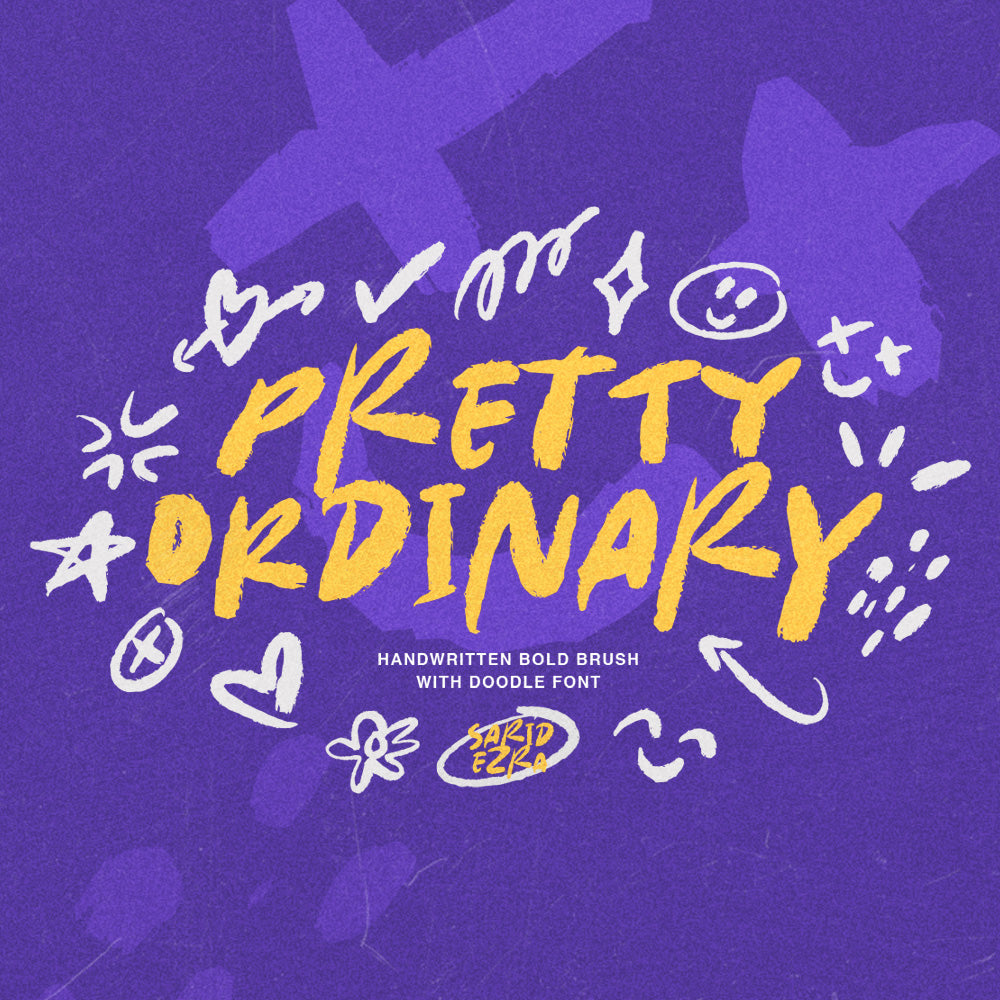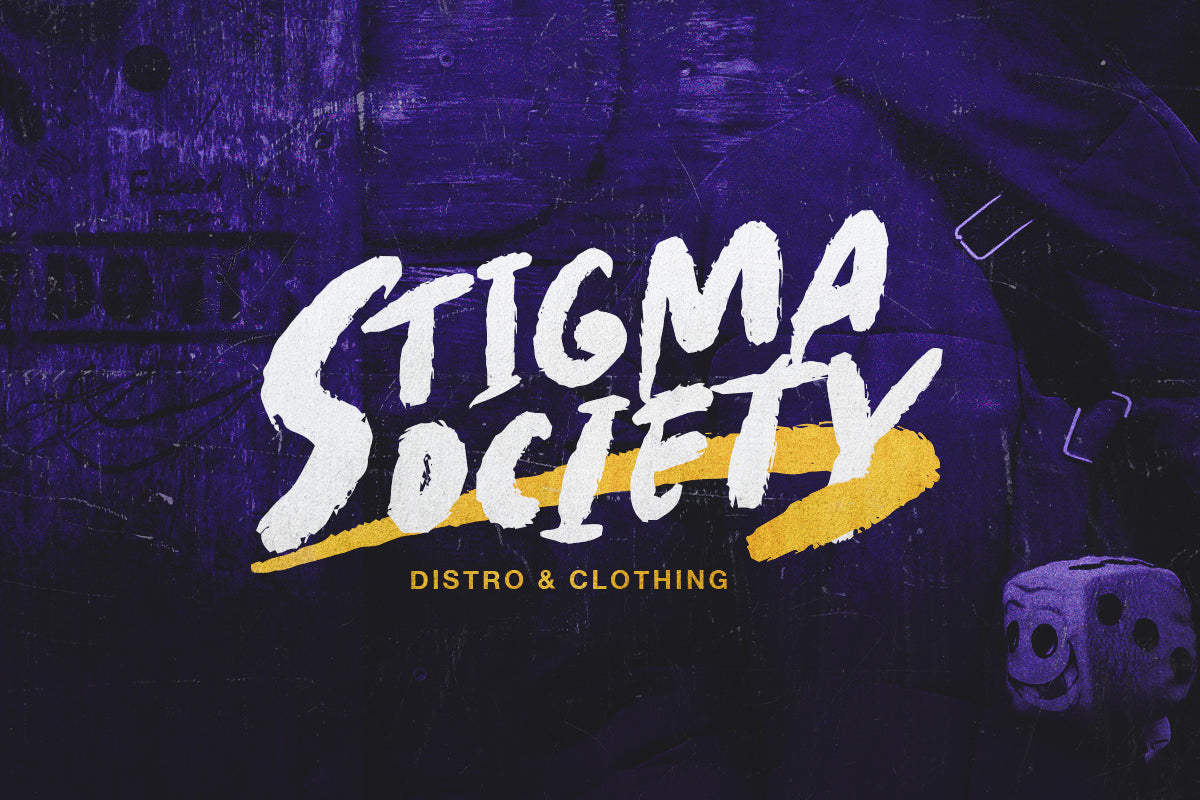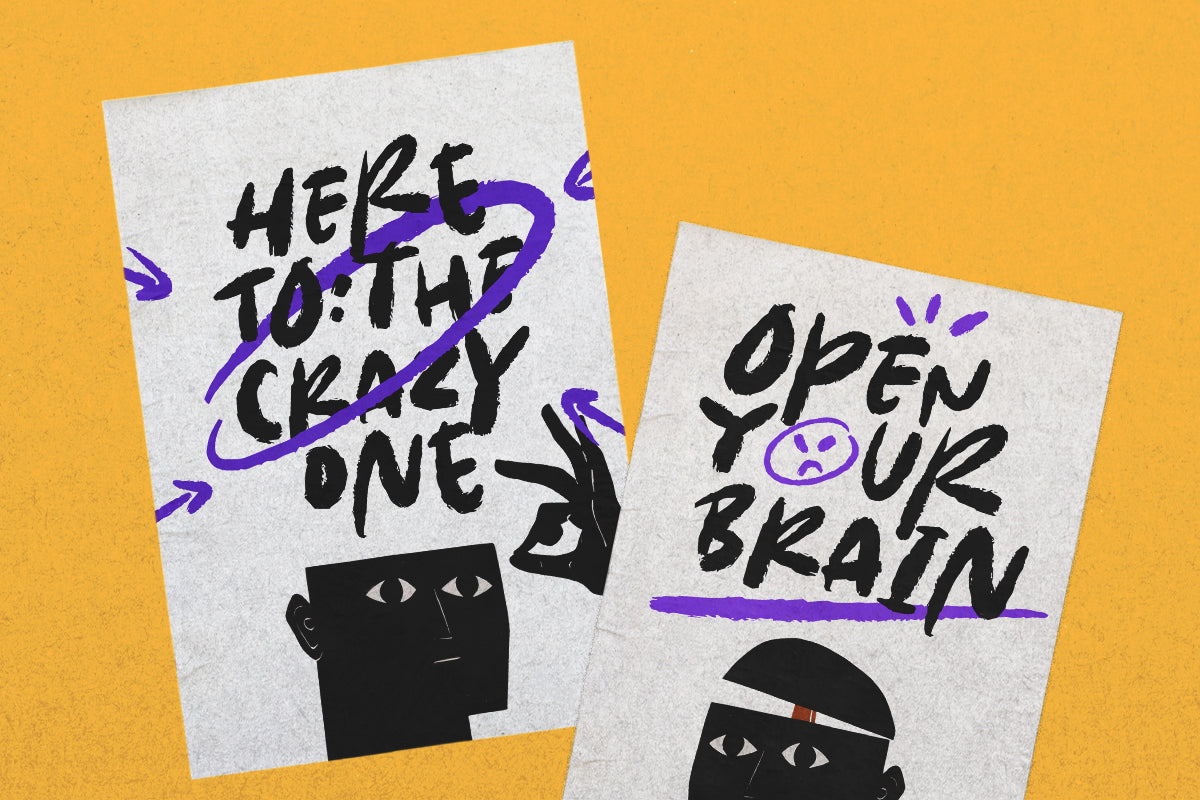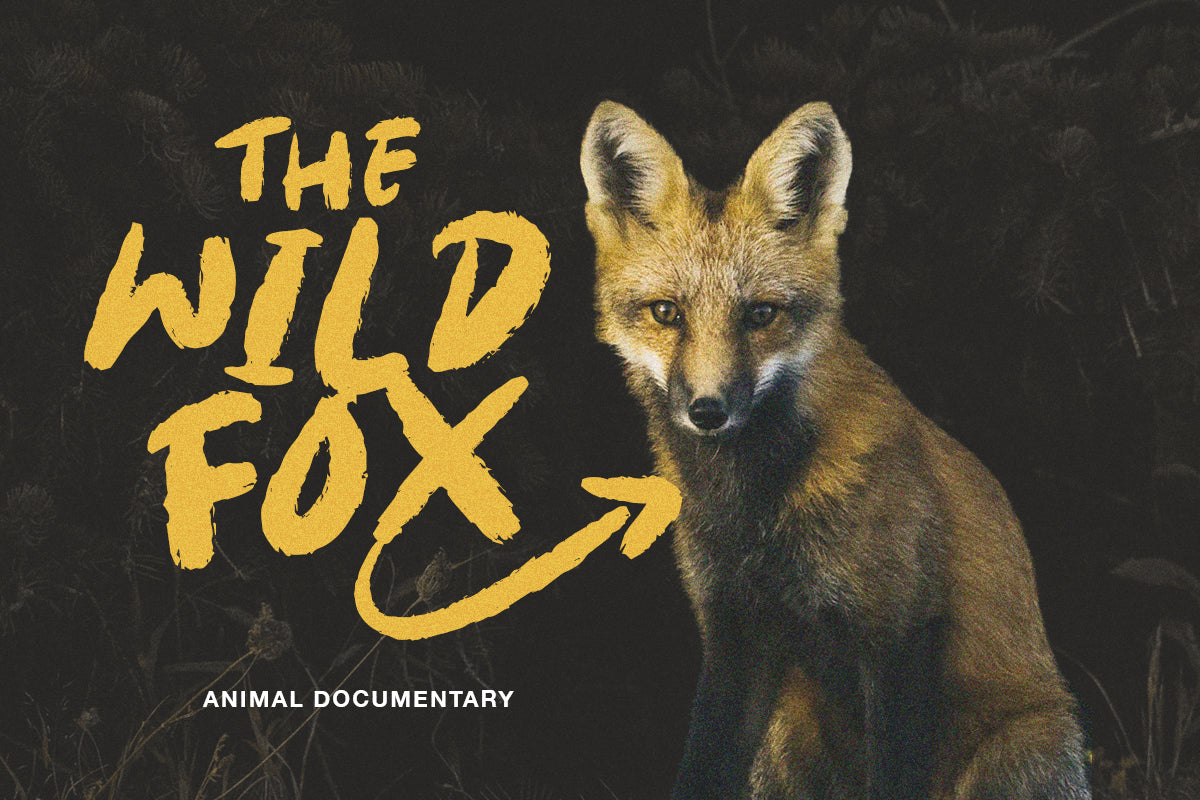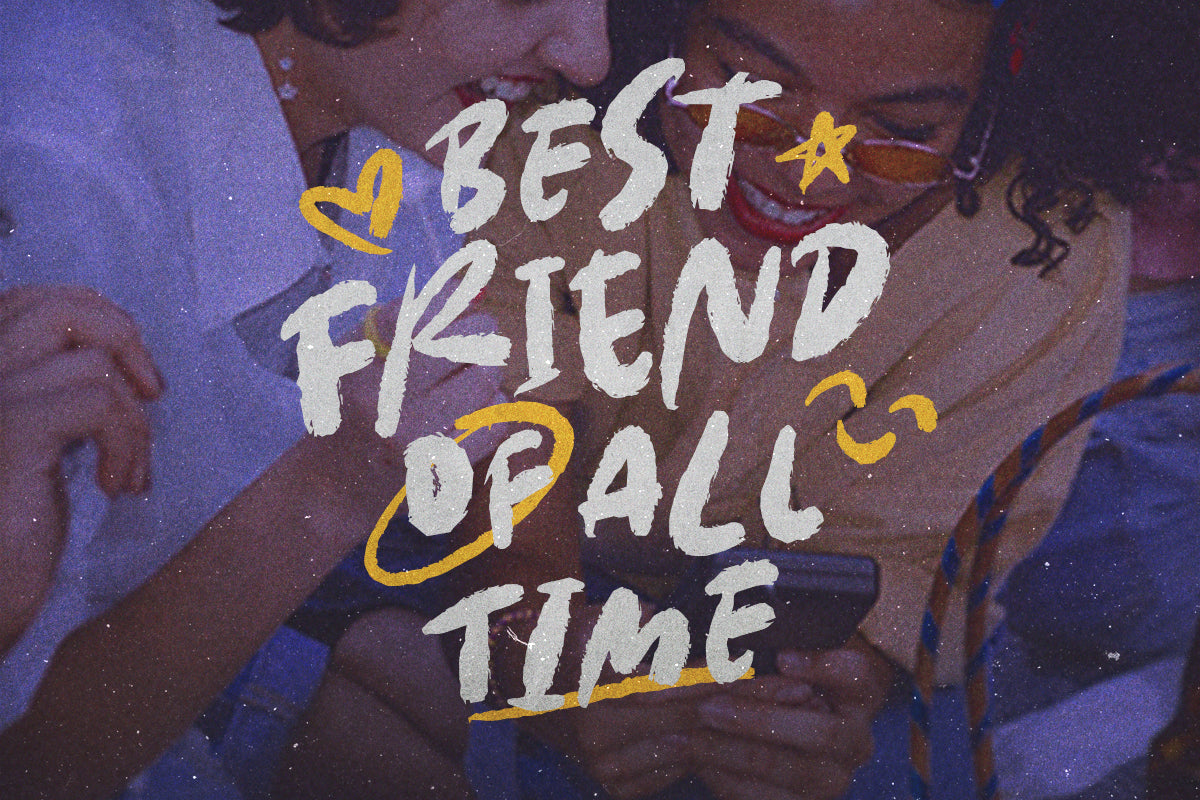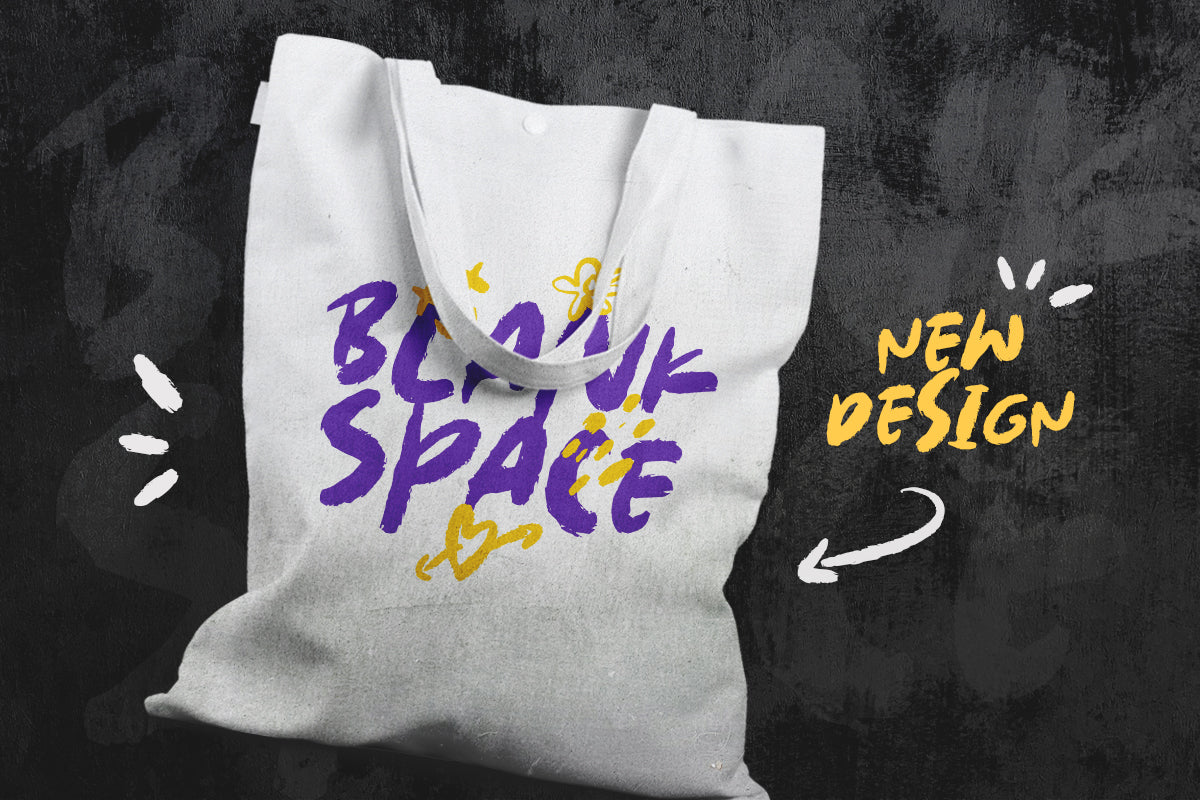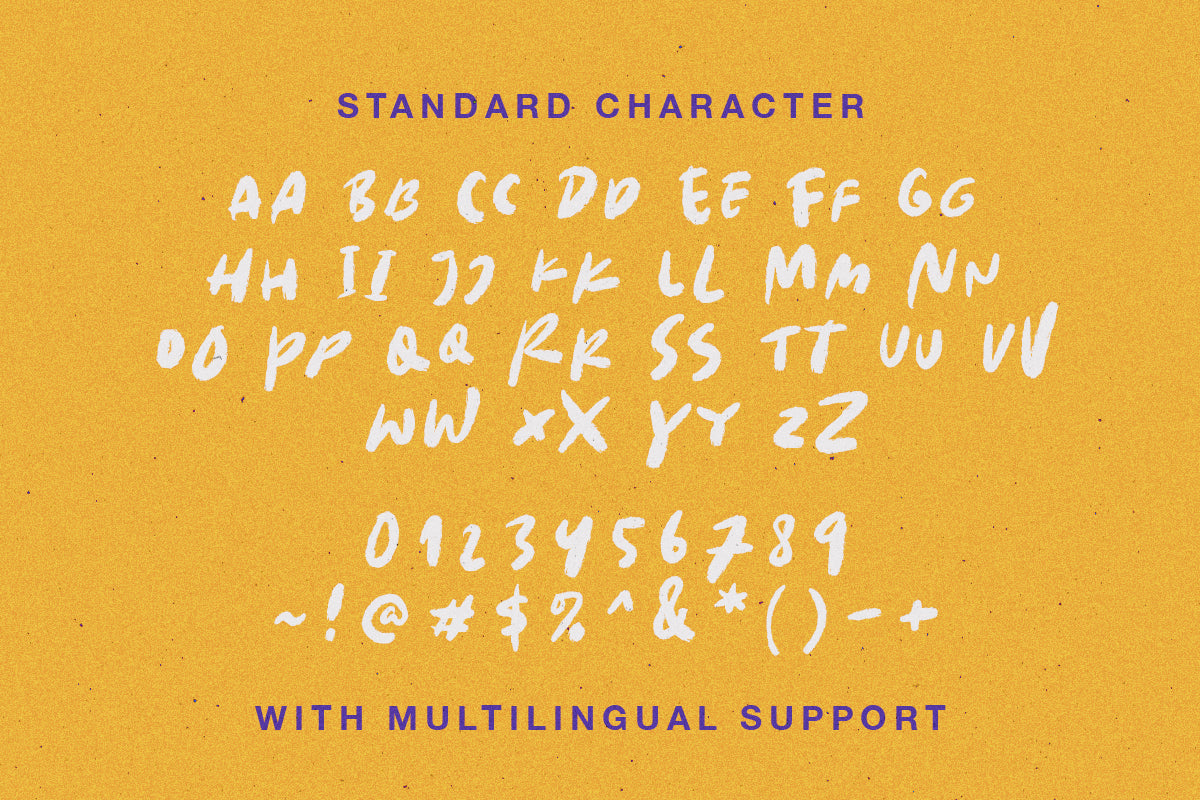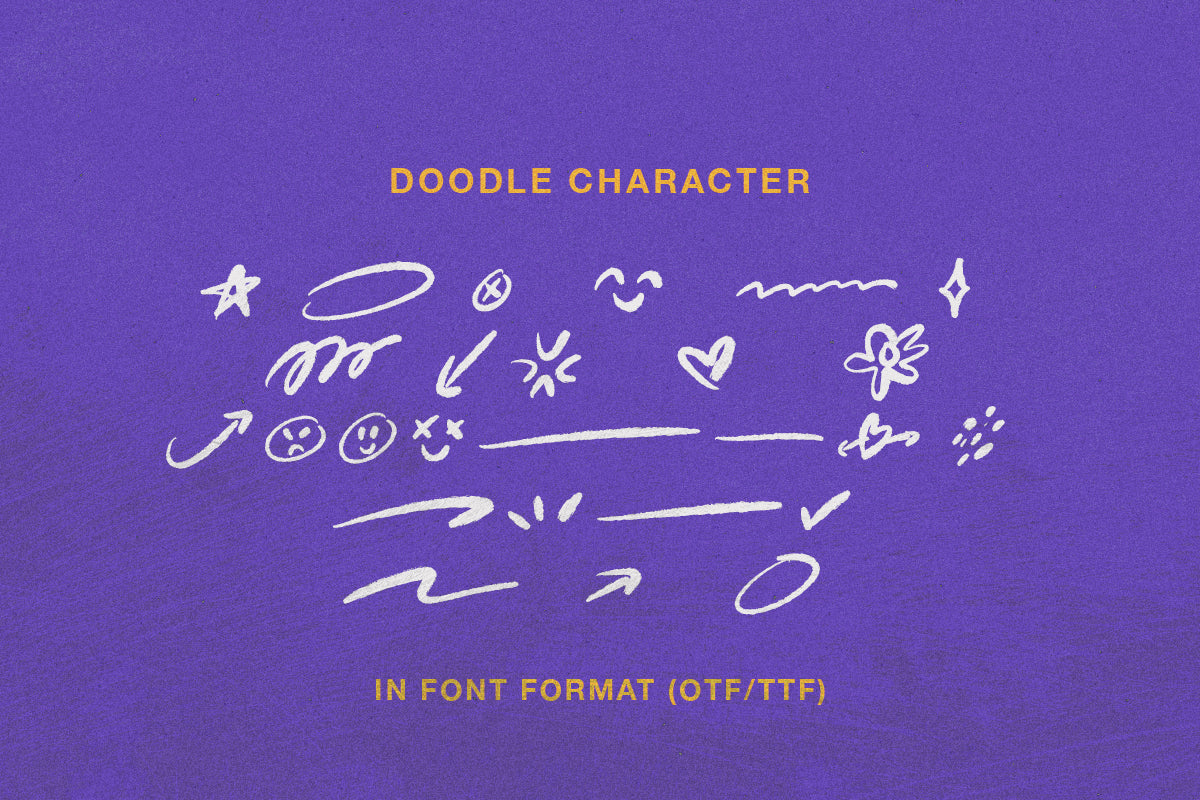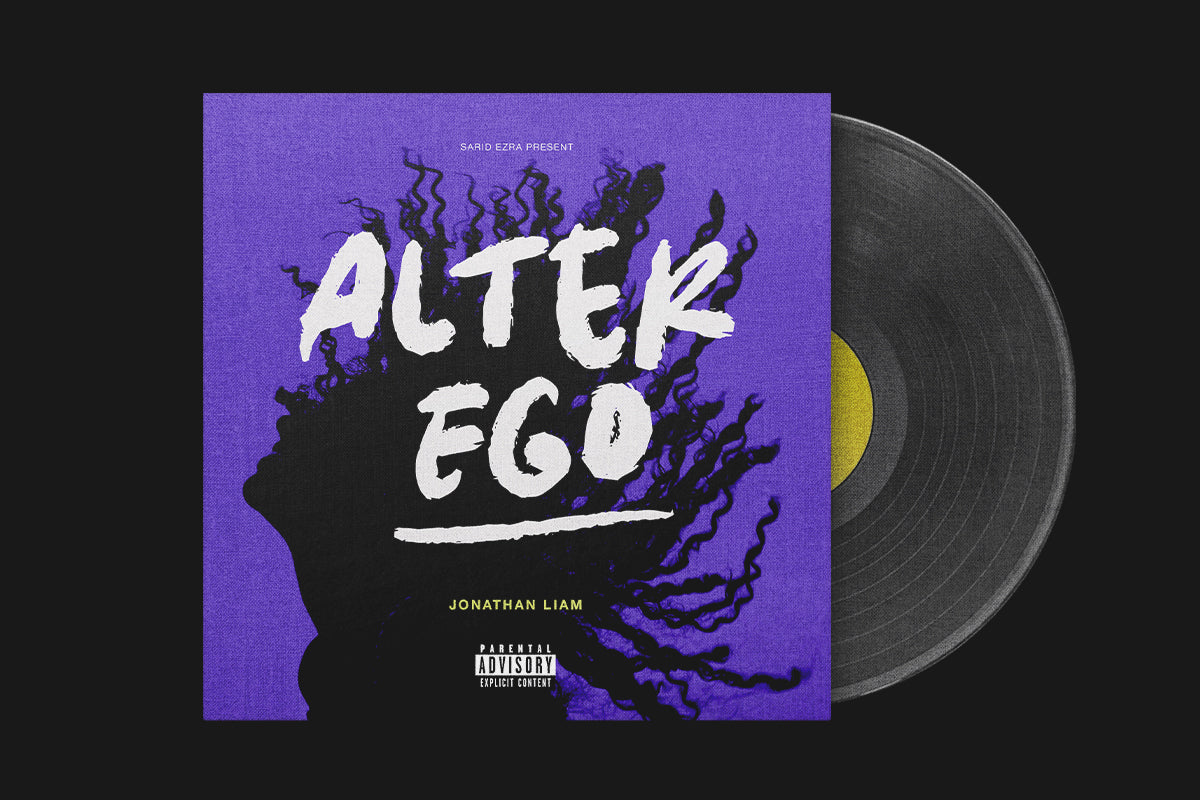
Pretty Ordinary - Bold Font + Doodle
Pretty Ordinary is a bold handwritten brush font that includes accompanying doodles in font format. It supports multiple languages and allows users to access doodles by typing A-Z and a-z when the "Pretty Ordinary Doodle" font is selected.